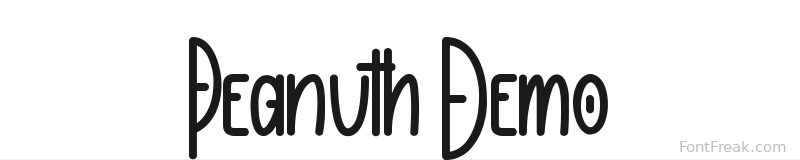
Peanuth Demo
About Peanuth Demo
Peanuth Demo by Noah Type is a captivating display font that exudes a playful yet modern aesthetic. This typeface features a unique blend of rounded forms and clean lines, making it an ideal choice for various creative projects. As a demo font categorized in the display style, it draws attention with its distinct personality and charm. The stroke weight is consistent, offering a balanced appearance, while the spacing between characters is thoughtfully designed for readability, ensuring that your text stands out without overwhelming the viewer.
The Peanuth Demo font is particularly well-suited for a range of applications. Its whimsical design makes it perfect for wedding invitations, where it can add a touch of elegance and joy. It can also be effectively used in movie posters, where its eye-catching style can help convey the theme of the film. Restaurant menus benefit from the font's inviting nature, making it an excellent choice for cafes and bistros aiming to create a warm atmosphere. Additionally, it's a fantastic option for promotional materials, such as flyers or social media graphics, that require a playful yet professional touch.
What sets the Peanuth Demo font apart is its ability to blend fun with functionality. It captures attention while maintaining clarity, making it an essential addition to any designer's toolkit. For those looking to elevate their projects, the Peanuth Demo font free download offers an excellent opportunity to do just that. Embrace its unique characteristics and watch your designs come to life.